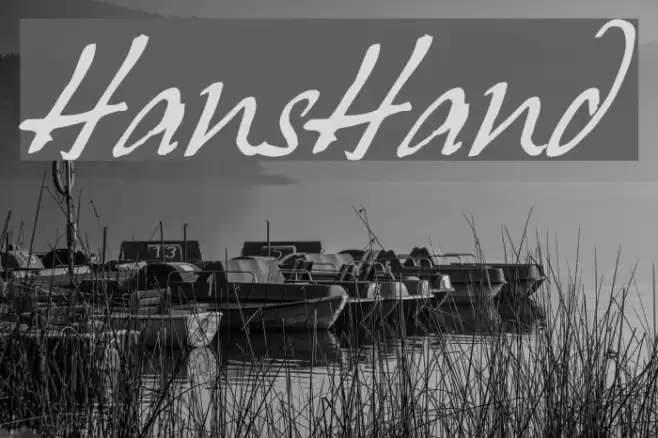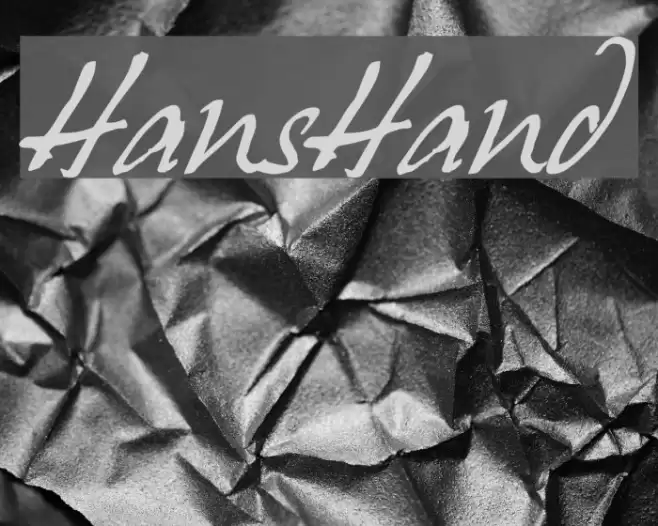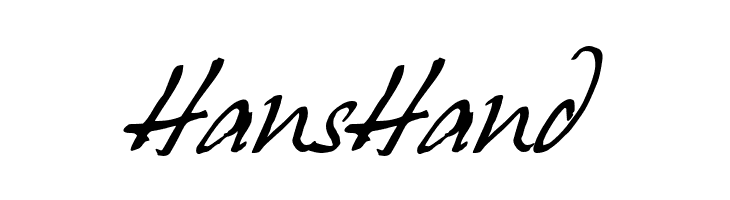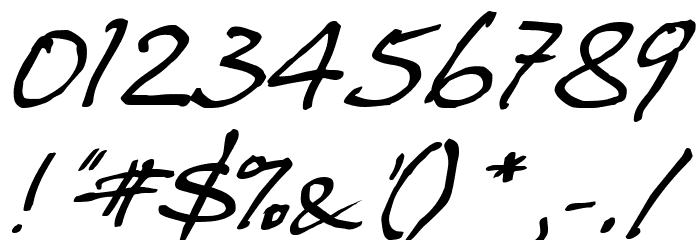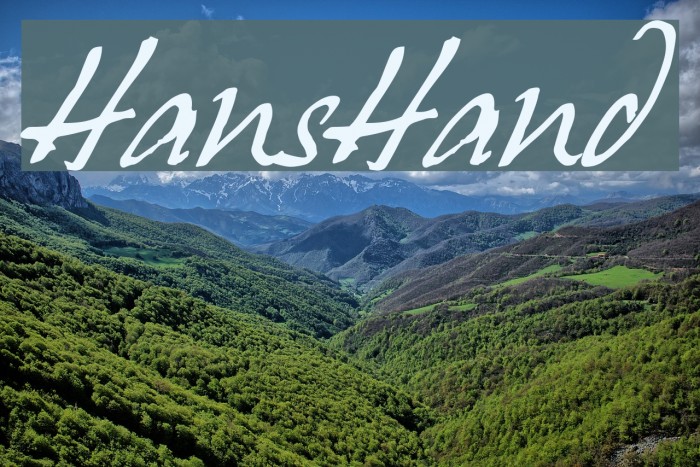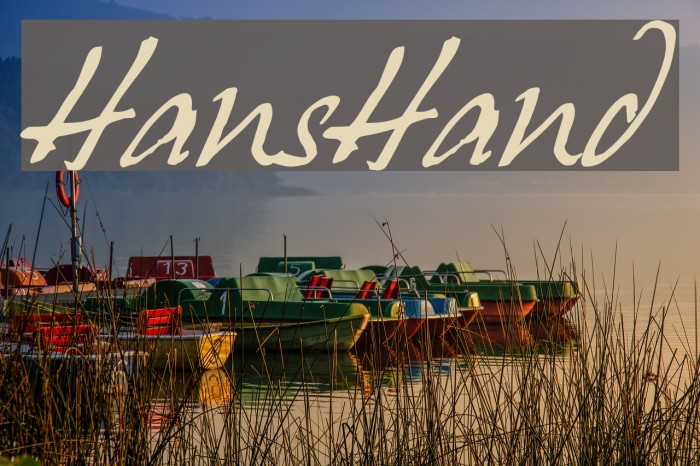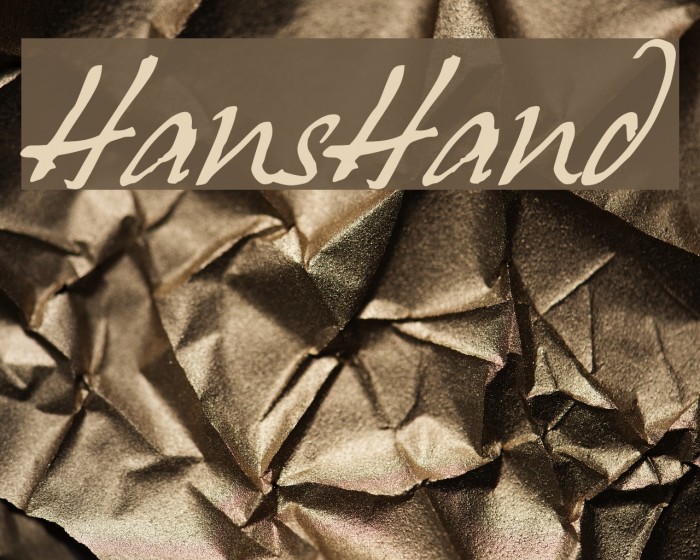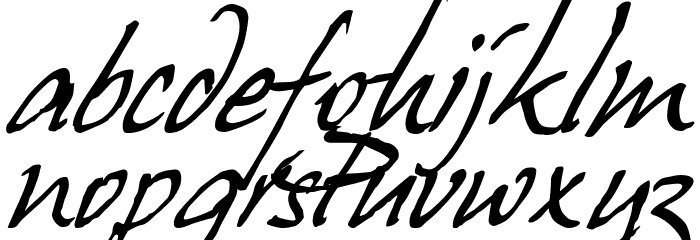
HansHand Font
HansHand Description
This font exudes a dynamic and expressive handwritten style, characterized by its fluid and cursive strokes. The letters are slightly slanted, giving a sense of motion and personal touch. The uppercase and lowercase letters maintain a consistent flow, with some letters featuring distinctive loops and swashes that add to its charm. The numerals and special characters are crafted with the same attention to detail, ensuring a cohesive look across all elements. This font is ideal for projects that require a personal, informal, or artistic touch, such as invitations, greeting cards, or creative branding.
A dynamic, expressive handwritten font with fluid, cursive strokes from Script fonts.
- Proposed Projects: Ideal for invitations, greeting cards, artistic branding, and personal projects.
- Use Case: Logos, Headlines, Artistic projects